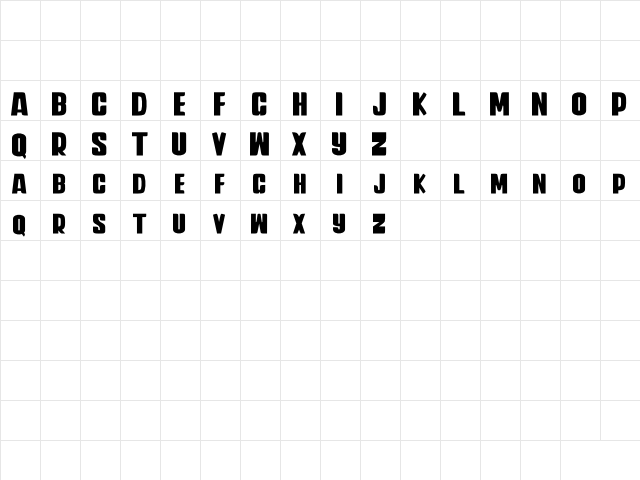
Travel Soulmates Weight Regular
Regular ·  Aldedesign 2018 ·
Design Context for Travel Soulmates Weight Typeface
Travel Soulmates Weight is a composed and adaptable typeface that performs quietly and consistently across a wide range of design contexts.